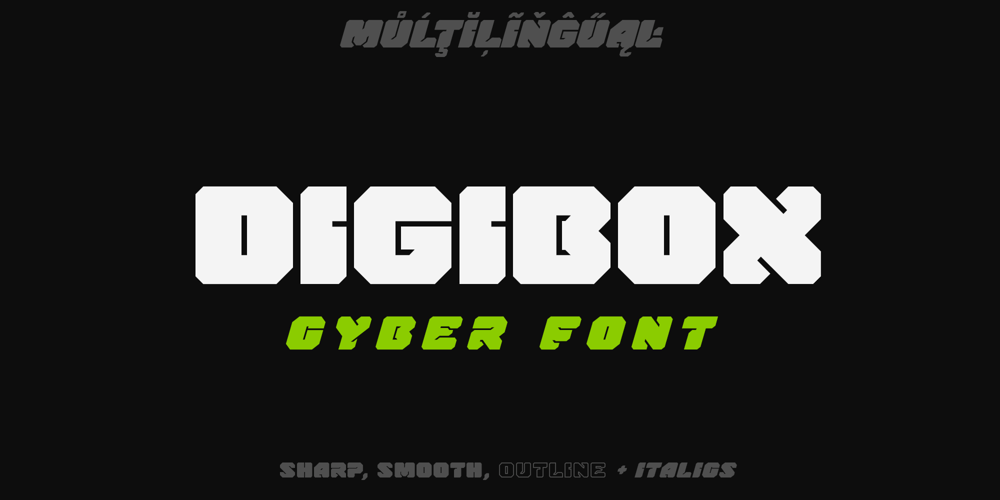
Digibox Font Family was designed by Dmytro Poliakh and published by Sentavio. Digibox contains 4 styles and family package options. Digibox is Font Family creates modern futuristic hi-tech atmosphere and style.It is created basing on Font Family of 6 styles (Sharp, Smooth, Outline and theirs Italic versions) which allows Digibox looks good and different as Headline and as Text both. Use it in your projects in such areas as robots&androids, cyberpunk, hi-tech, future, virtual reality, space, army, games and many others.